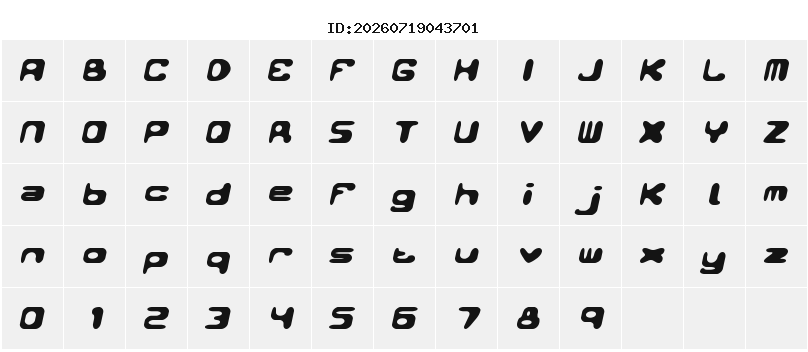
Conduit 2 Italics BRK Preview
• Designer: ÆNIGMA FONTS - Brian Kent
Conduit 2 Italics BRK.ttf is a modern, elegant sans-serif font designed for ultimate readability and visual harmony. Perfect for branding, headlines, web design, and print materials.